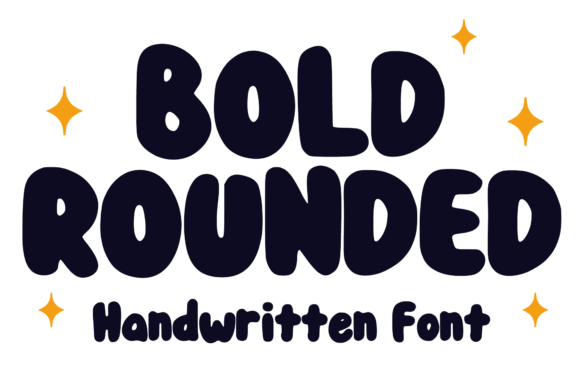
Introducing Bold Rounded: The Ultimate Fun Font for Creative Projects
Are you a designer, crafter, or DIY enthusiast looking for a font that can add a playful touch to your projects? Look no further than Bold Rounded, a fun, rounded bold cartoon display font that’s perfect for a wide range of creative endeavors. In this article, we’ll explore the features and benefits of Bold Rounded, and show you how to make the most of this versatile font.
What is Bold Rounded?
Bold Rounded is a unique and eye-catching font that’s designed to bring a smile to your face. With its rounded edges and bold lines, this font is perfect for creating fun and playful designs that are sure to grab attention. Whether you’re working on a t-shirt design, sticker, or any other project, Bold Rounded is the perfect choice.
Key Features of Bold Rounded
• Rounded Edges: The rounded edges of Bold Rounded give it a soft and friendly feel that’s perfect for designs that need to be approachable and inviting.
• Bold Lines: The bold lines of Bold Rounded make it easy to read and ensure that your designs stand out from the crowd.
• Cartoon-Style: The cartoon-style design of Bold Rounded adds a playful touch to your projects and makes them more engaging.
• Versatile: Bold Rounded can be used for a wide range of projects, from t-shirts and stickers to posters and flyers.
Benefits of Using Bold Rounded
So why choose Bold Rounded for your next project? Here are just a few benefits of using this amazing font:
• Adds a Playful Touch: Bold Rounded adds a playful touch to your designs, making them more engaging and fun to look at.
• Easy to Read: The bold lines and rounded edges of Bold Rounded make it easy to read, even at small sizes.
• Versatile: Bold Rounded can be used for a wide range of projects, making it a great addition to your font library.
• Unique: Bold Rounded is a unique font that will help your designs stand out from the crowd.
Using Bold Rounded for Your Projects
So how can you use Bold Rounded for your projects? Here are a few ideas to get you started:
• T-Shirts: Use Bold Rounded to create fun and playful t-shirt designs that are sure to grab attention.
• Stickers: Bold Rounded is perfect for sticker designs, adding a playful touch that’s sure to appeal to kids and adults alike.
• Posters and Flyers: Use Bold Rounded to create eye-catching posters and flyers that are sure to grab attention.
• Digital Designs: Bold Rounded can also be used for digital designs, such as social media graphics and website headers.
Tips for Getting the Most Out of Bold Rounded
Here are a few tips for getting the most out of Bold Rounded:
• Experiment with Colors: Bold Rounded looks great in a wide range of colors, so don’t be afraid to experiment and find the perfect color for your design.
• Use it with Other Fonts: Bold Rounded can be paired with other fonts to create a unique and interesting design.
• Play with Sizes: Bold Rounded can be used at a wide range of sizes, from small to large, so don’t be afraid to experiment and find the perfect size for your design.
In conclusion, Bold Rounded is a fun, rounded bold cartoon display font that’s perfect for a wide range of creative projects. With its rounded edges, bold lines, and cartoon-style design, Bold Rounded is sure to add a playful touch to your designs. Whether you’re a designer, crafter, or DIY enthusiast, Bold Rounded is a great addition to your font library. So why wait? Download Bold Rounded today and start creating fun and playful designs that are sure to grab attention!